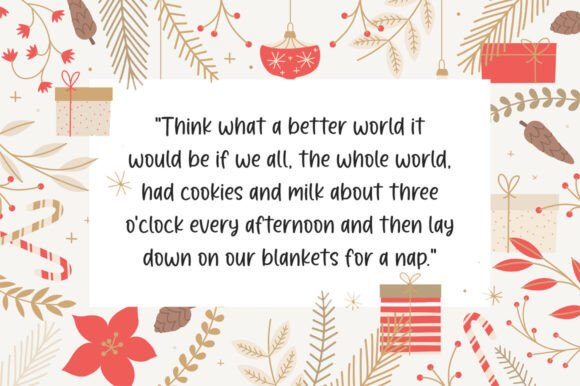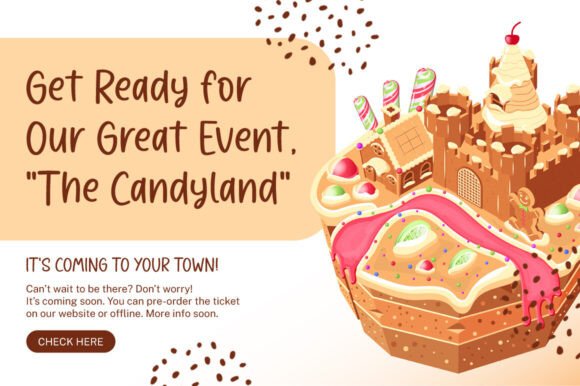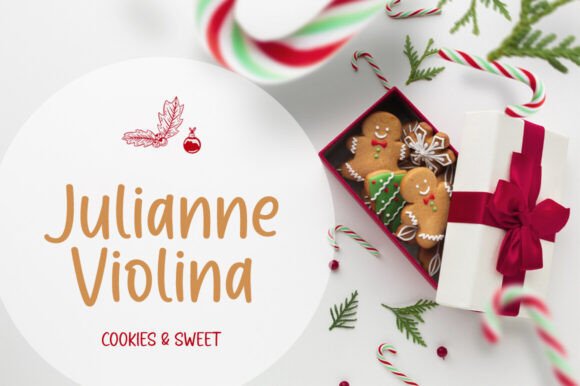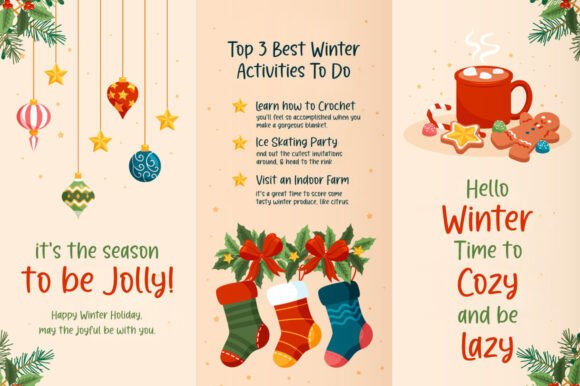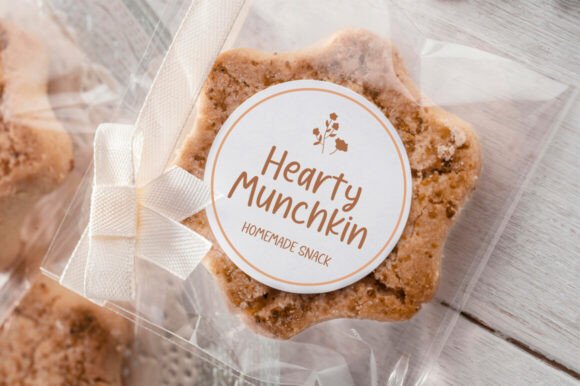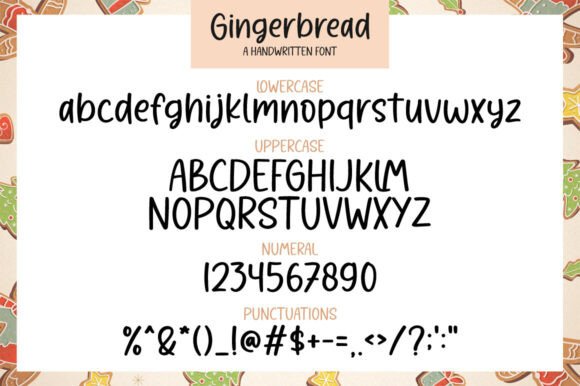
The Charm of Gingerbread Font: A Designer’s Delight
I’ll never forget the time I was working on a project for a client’s Christmas party invitation. I wanted to create something special, something that would make the invitation stand out. But, as I was scrolling through my font library, I just couldn’t find the right one. That’s when I stumbled upon Gingerbread Font. It was love at first sight! ✨
This delicate and simple-lettered handwritten font was exactly what I needed to give my design a personal and realistic feel. And, let me tell you, it did not disappoint. In this article, I’ll share with you my experience with Gingerbread Font, its features, and how to make the most of it in your designs.
- ✨ Authentic look: Gingerbread Font has a unique, hand-crafted feel that adds a personal touch to any design.
- ✅ Easy to read: Despite its delicate nature, the font is surprisingly legible, making it perfect for body text and quotes.
- 💫 Versatile: From chalkboard quotes to teaching materials, Gingerbread Font can be used in a variety of design projects.
While Gingerbread Font is a beautiful addition to any design project, there are a few things to keep in mind:
- ⚠️ Limited character set: As a handwritten font, Gingerbread Font may not have all the characters you need, such as special symbols or glyphs.
- 🤔 May not be suitable for long texts: While the font is legible, it’s still a delicate script font. It may not be the best choice for long texts or paragraphs.
- Experiment with OpenType features, such as ligatures and stylistic alternates, to add more personality to your text.
- Take advantage of OpenType features, such as glyphs and stylistic alternates, to add more depth to your design.
Gingerbread Font was inspired by the classic chalkboard designs of the past. The font’s creator wanted to capture the essence of handwriting on a chalkboard, with all its imperfections and quirks. The result is a font that’s both nostalgic and modern, perfect for designers who want to add a personal touch to their work.
Q: What is Gingerbread Font?
A: Gingerbread Font is a delicate and simple-lettered handwritten font, perfect for designs that need a personal and realistic feel.